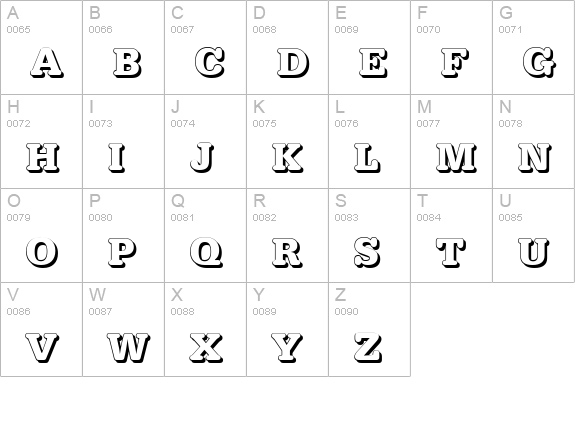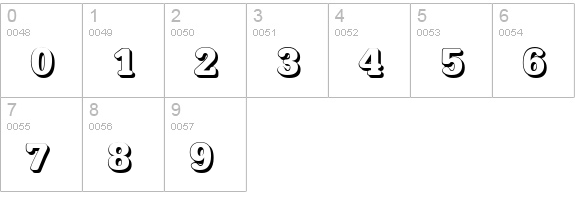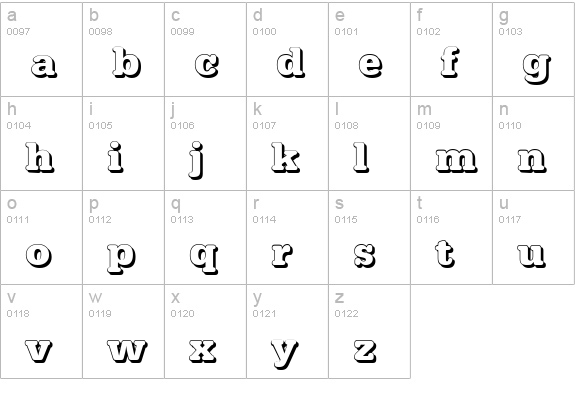
TypewriterSh-Bold is a strong, high-contrast variant in the TypewriterSh typeface family \xE2\x80\x94 well suited to headlines, attention-grabbing titles, and strong calls-to-action.
TypewriterSh-Bold font is a bold and distinctive typeface that exudes a sense of vintage charm and classic elegance. With its clean lines and sturdy appearance, this font is perfect for adding a touch of sophistication to any project. Whether you're creating a retro-inspired design or looking to make a statement with your text, TypewriterSh-Bold is sure to impress. And the best part? TypewriterSh-Bold is available for free download at FontsMarket.com. This means you can easily access this unique font and use it in your designs without any cost. So why wait? Download TypewriterSh-Bold today and elevate your projects with its timeless appeal.